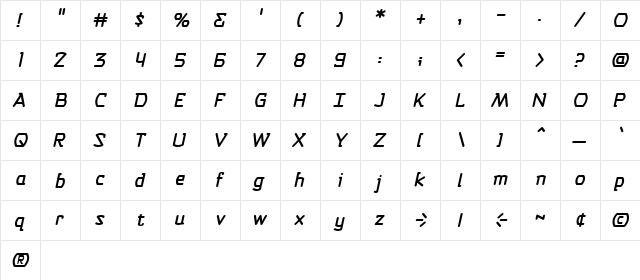
Self Destruct Button BB Italic
| Foundry | Nate Piekos. Blambot.com |
| Designer | Nate Piekos |
Design Context for Self Destruct Button BB Typeface
Self Destruct Button BB is a composed and adaptable typeface that performs quietly and consistently across a wide range of design contexts. The dynamic lean of this cut emphasises speed and emphasis in any layout.
Pro Tip: Use Self Destruct Button BB for emphasis, pull quotes, and subheadings where its slanted energy can add rhythm to the layout.